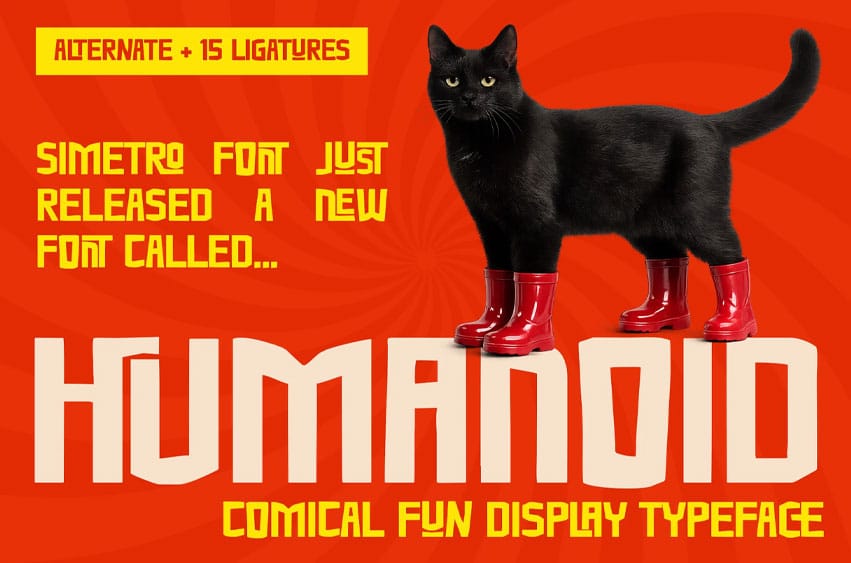
Humanoid Font is a bold comical display typeface crafted to bring energy, humor, and character-driven personality into modern typography. Built with strong geometric structures and expressive proportions, this font creates instant visual attention while maintaining excellent readability across creative applications. Inspired by playful editorial graphics, comic culture, and contemporary pop design aesthetics, Humanoid blends quirky shapes with confident strokes to produce a distinctive and memorable visual voice.
Each letterform carries a unique rhythm, making headlines feel alive and engaging without sacrificing clarity. With alternate characters and 15 custom ligatures included, designers gain flexibility to craft unique typographic compositions effortlessly. Extensive glyph support ensures multilingual compatibility and professional usability across global projects.